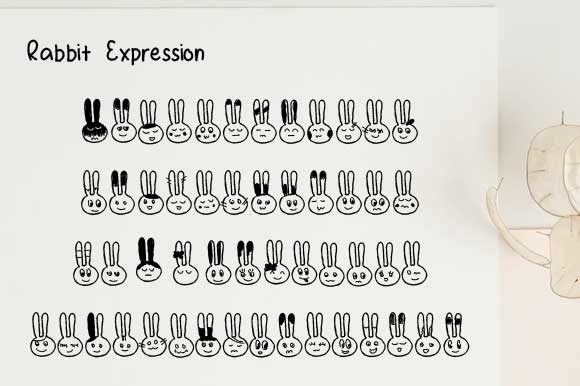
About Rabbit Expression Font
Rabbit Expression is a cute and charming dingbats font that features various adorable rabbit-themed doodles. With its distinct style and playful expressions, this font can add a touch of whimsy and cuteness to a wide range of designs. Here are some ways you can use Rabbit Expression to enhance your creative projects:
1. Children’s Books and Illustrations: If you’re working on a children’s book or creating illustrations for kids, Rabbit Expression can be a perfect fit. Use the doodles as character elements, decorative accents, or even create custom typography using the rabbit-themed letters. This font will bring the illustrations to life and captivate young readers with its adorable and expressive rabbits.
2. Greeting Cards and Invitations: Whether it’s for a birthday, baby shower, or any special occasion, Rabbit Expression can add a playful and delightful touch to your greeting cards and invitations. Incorporate the doodles as decorative elements, create borders, or use them to highlight specific details. This font will make your cards and invitations stand out and create a sense of joy and whimsy.
3. Social Media Graphics: If you want to create engaging and eye-catching social media graphics, Rabbit Expression can be a great choice. Use the doodles as cute icons, emojis, or incorporate them into your typography. This font will help you create fun and memorable visuals that resonate with your audience and convey a lighthearted message.
4. Stationery and Paper Goods: If you have a stationery business or enjoy creating personalized paper goods, Rabbit Expression can be a valuable addition to your designs. Use the doodles to decorate notepads, journals, stickers, or even create custom wrapping paper. This font’s cute and distinctive style will make your stationery products unique and appealing.
5. Home Decor and Accessories: Rabbit Expression can also be used to create charming home decor items or accessories. Whether it’s designing prints, pillows, mugs, or tote bags, the cute rabbit-themed doodles can add a touch of whimsy and personality to your creations. This font allows you to infuse your designs with the adorable appeal of rabbits.
In summary, Rabbit Expression is a cute dingbats font that offers a wide range of adorable rabbit-themed doodles. Its distinct style makes it suitable for various designs, including children’s books, greeting cards, social media graphics, stationery, home decor, and more. By incorporating the playful and whimsical expressions of Rabbit Expression, you can bring a sense of cuteness and joy to your creative projects and make them truly stand out.